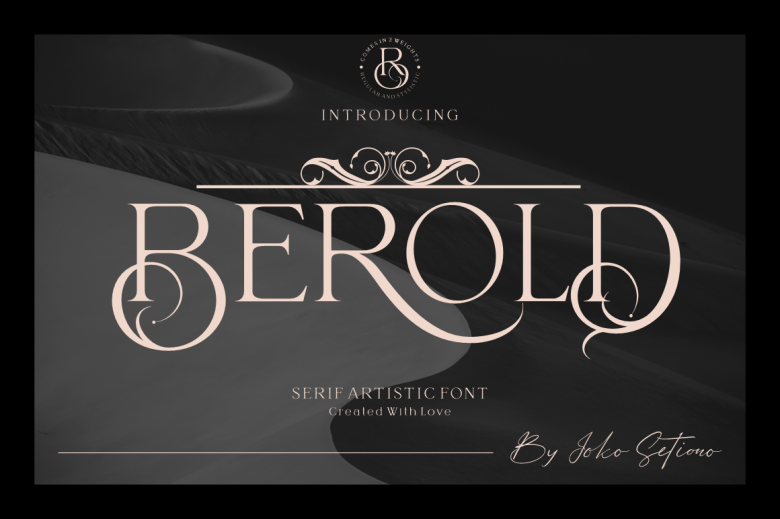
Berold Font
Berold is an elegant and imposing serif font. Simple but with a strong visual effect, this font will instantly make your creation more appealing than any others.